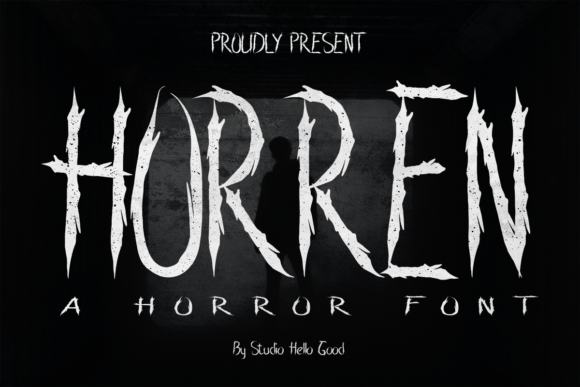
Introducing Horren Font: Embrace the Terror with Haunting Horror Typography!
Prepare to delve into the darkest depths of fear with Horren Font, a chilling and atmospheric typeface crafted specifically for the spine-tingling world of horror. With its ominous curves and unsettling details, this font embodies the essence of terror, evoking the eerie atmosphere of haunted mansions and shadowy forests.
The Inspiration Behind Horren Font
Horren Font is the brainchild of [Designer’s Name], a renowned typographer with a passion for the macabre and the unknown. Inspired by the classic horror movies of the past, as well as the eerie landscapes of abandoned asylums and cemeteries, the designer sought to create a typeface that would capture the very essence of fear.
The design process involved countless hours of research, experimentation, and refinement. The goal was to create a font that would not only send shivers down the spine but also evoke a sense of nostalgia for the classic horror movies and literature of the past.
Design Elements of Horren Font
Horren Font casts a sinister spell with its twisted letterforms and macabre aesthetic, each character dripping with a sense of foreboding and dread. From the jagged edges to the haunting serifs, every element of this font is meticulously designed to send shivers down the spine and invoke a sense of unease.
- Twisted Letterforms: Each letter in Horren Font has been carefully crafted to convey a sense of unease and discomfort. The twisted curves and irregular shapes create a sense of tension, making the font perfect for horror-themed designs.
- Macabre Aesthetic: The font’s macabre aesthetic is inspired by the darker side of life, with elements of death, decay, and destruction. This aesthetic is woven throughout the font, creating a sense of foreboding and dread.
- Jagged Edges: The jagged edges of Horren Font add to its unsettling feel, creating a sense of roughness and aggression. These edges also help to create a sense of depth and dimensionality, making the font stand out in any design.
- Haunting Serifs: The serifs in Horren Font are designed to resemble the skeletal fingers of the dead, adding to the font’s macabre aesthetic. These serifs also help to create a sense of movement and fluidity, making the font more dynamic and engaging.
Uses for Horren Font
Whether youβre designing a poster for a horror film or creating promotional material for a haunted attraction, Horren Font provides the perfect tool to capture the essence of fear and suspense. Its versatility and evocative style make it an essential asset for designers seeking to immerse their audience in a world of darkness and terror.
- Horror Film Posters: Horren Font is perfect for creating eye-catching posters for horror films, adding a touch of terror and suspense to your design.
- Haunted Attraction Marketing: The font’s eerie and unsettling feel makes it ideal for promoting haunted attractions, such as haunted houses and haunted hayrides.
- Horror-Themed Merchandise: Horren Font can be used to create a range of horror-themed merchandise, including t-shirts, mugs, and other items.
- Book Covers: The font’s macabre aesthetic makes it perfect for book covers, particularly for horror and thriller novels.
Tips for Using Horren Font
To get the most out of Horren Font, here are a few tips to keep in mind:
- Use it Sparingly: Due to its bold and attention-grabbing nature, it’s best to use Horren Font sparingly in your design. This will help to create a sense of impact and emphasis.
- Pair it with Other Fonts: Horren Font can be paired with other fonts to create a striking contrast. Try pairing it with a clean, sans-serif font to create a sense of visual interest.
- Experiment with Colors: The font’s dark and ominous feel makes it perfect for use with bold, vibrant colors. Experiment with different color schemes to create a unique and eye-catching design.
Horren Font is a powerful tool for designers seeking to create a sense of fear and suspense in their work. With its twisted letterforms, macabre aesthetic, and haunting serifs, this font is perfect for horror-themed designs. Whether you’re creating a poster for a horror film or promoting a haunted attraction, Horren Font provides the perfect way to capture the essence of terror and unease.